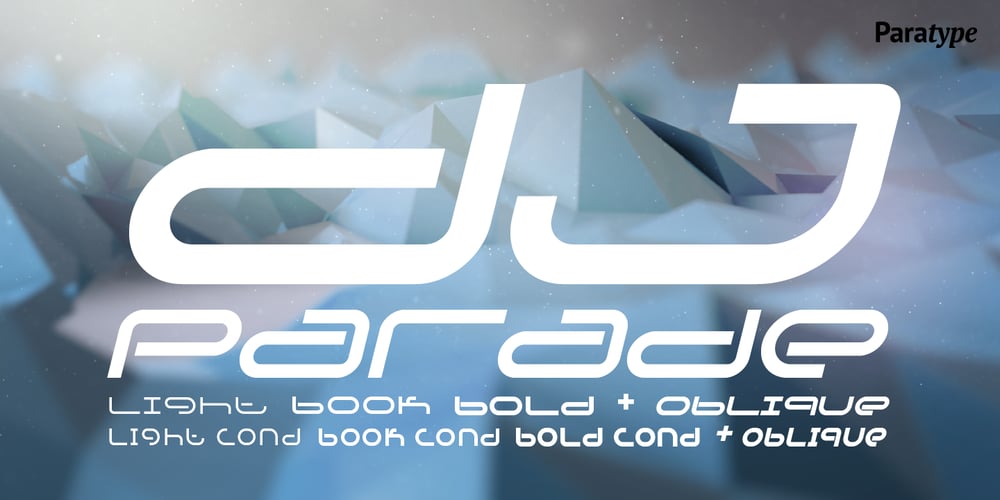
DJ Parade
DJ Parade font
DJ Parade Font Family was designed by Vladlen Erium and published by ParaType. DJ Parade contains 12 styles and family package options. An original display typeface was designed in 2000 by Vladlen Erium for the series of international musical events. A wide Sans of distinctive letterforms with rounded corners is well used in advertising of teenage goods and modern technologies. Licensed by ParaType in 2003.